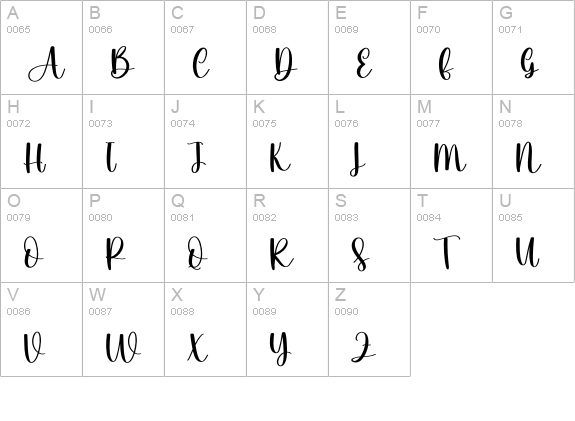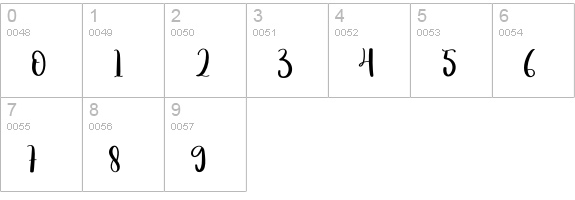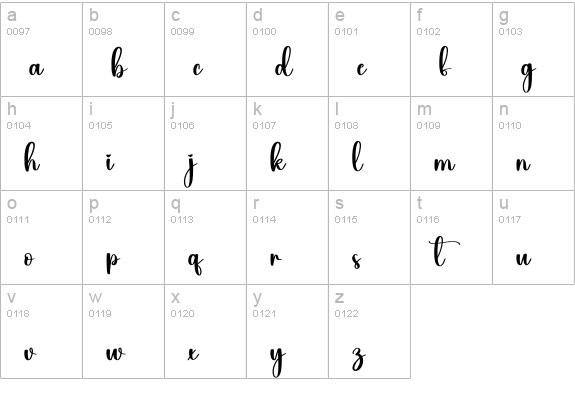
Flowerpink Font Details
Flowerpink is a free for personal use font in the Script > Handwritten category, designed by scratchones. It has been downloaded 30 times and is available for Windows, Mac and Linux.
Flowerpink font is a whimsical and elegant typeface that exudes charm and femininity. Its delicate strokes and graceful curves make it perfect for adding a touch of sophistication to any design project. With its soft, romantic vibe, Flowerpink font is ideal for wedding invitations, greeting cards, and other special occasions.